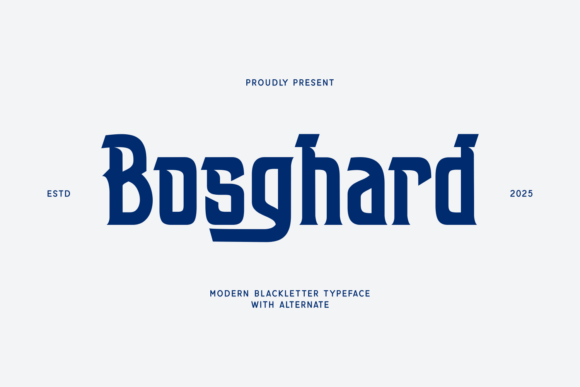
Bosghard Font: A Modern Blackletter Typeface for the Future
In the world of typography, blackletter fonts have always been a symbol of elegance, sophistication, and historical significance. With the rise of modern branding and digital communication, designers are constantly on the lookout for typefaces that can add a touch of drama and uniqueness to their projects. Introducing Bosghard, a contemporary blackletter typeface from the year 2025, designed to revolutionize the way we think about traditional gothic lettering.
A promotional image introducing โBosghard,โ a modern blackletter typeface from the year 2025.
The Evolution of Blackletter Typography
Blackletter typography has a rich history dating back to the Middle Ages. Characterized by its dramatic flourishes, intricate details, and bold strokes, blackletter fonts were originally used for illuminated manuscripts and Gothic architecture. Over the centuries, blackletter typography has evolved, influencing various design styles, from Victorian-era advertising to modern digital media.
In recent years, there has been a resurgence of interest in blackletter typography, with designers seeking to revive and reinterpret traditional lettering styles for modern applications. Bosghard font is at the forefront of this movement, offering a fresh take on classic gothic lettering.
Introducing Bosghard Font
Bosghard font is a modern blackletter typeface designed specifically for the demands of contemporary branding and digital communication. This innovative font combines the elegance and drama of traditional gothic lettering with the versatility and legibility required for modern headlines and titles.
Bosghard font features:
- Bold and Impactful Forms: Bosghard font boasts dramatic, bold strokes and intricate details, making it perfect for headlines, titles, and promotional materials.
- Alternate Characters: The font includes a range of alternate characters, allowing designers to add variety and uniqueness to their typography.
- Modern Twist: Bosghard font updates traditional blackletter typography with a modern aesthetic, making it suitable for contemporary branding and digital media.
Design Characteristics
Bosghard font is characterized by its distinctive design elements, including:
- Intricate Flourishes: The font features intricate flourishes and swashes, adding a touch of elegance and sophistication to any design.
- Geometric Shapes: Bosghard font incorporates geometric shapes and clean lines, giving it a modern and contemporary feel.
- High Contrast: The font’s high contrast between thick and thin strokes creates a dramatic and eye-catching effect.
Applications and Usage
Bosghard font is an incredibly versatile typeface, suitable for a wide range of applications, including:
- Branding and Logos: The font’s bold and impactful forms make it perfect for logos, brand names, and taglines.
- Headlines and Titles: Bosghard font is ideal for headlines, titles, and promotional materials, adding a touch of drama and elegance to any design.
- Packaging and Advertising: The font’s unique and eye-catching design makes it suitable for packaging, advertising, and marketing materials.
Why Choose Bosghard Font?
In a world where typography plays a crucial role in communication and branding, Bosghard font offers a unique and compelling solution for designers and brands. Here are just a few reasons why you should consider Bosghard font for your next project:
- Uniqueness: Bosghard font offers a fresh take on traditional blackletter typography, setting it apart from more common typefaces.
- Versatility: The font’s range of alternate characters and design elements makes it suitable for a wide range of applications and design styles.
- Legibility: Despite its bold and intricate design, Bosghard font remains highly legible, making it perfect for headlines and titles.
Bosghard font represents a bold and innovative step forward in the world of typography. By combining the elegance and drama of traditional gothic lettering with the demands of modern branding and digital communication, Bosghard font offers a unique and compelling solution for designers and brands. Whether you’re looking to add a touch of historical drama to your designs or simply want to stand out in a crowded market, Bosghard font is the perfect choice.